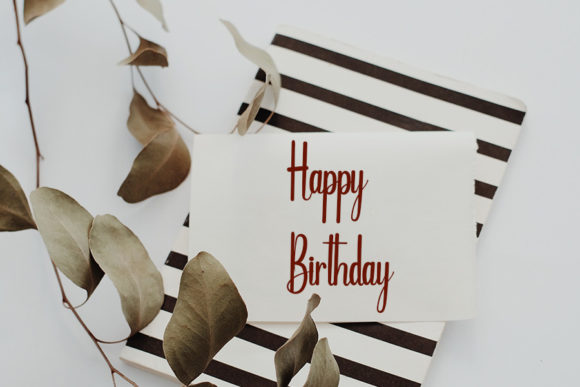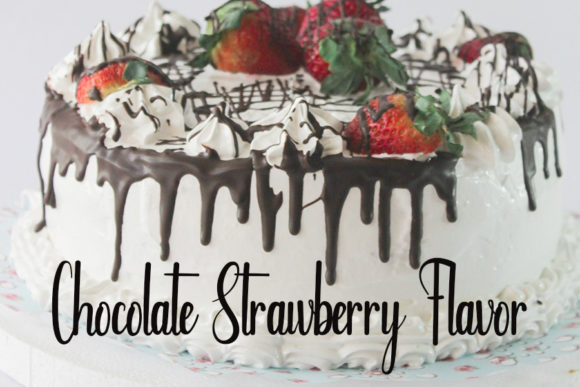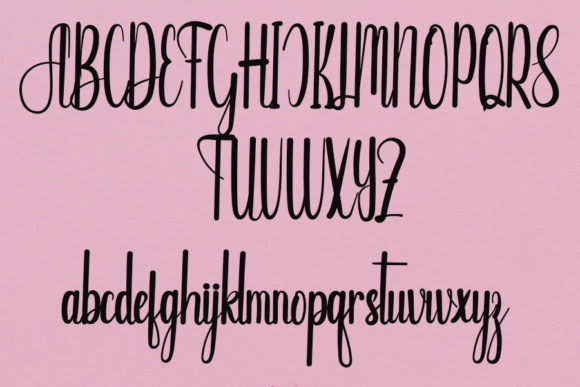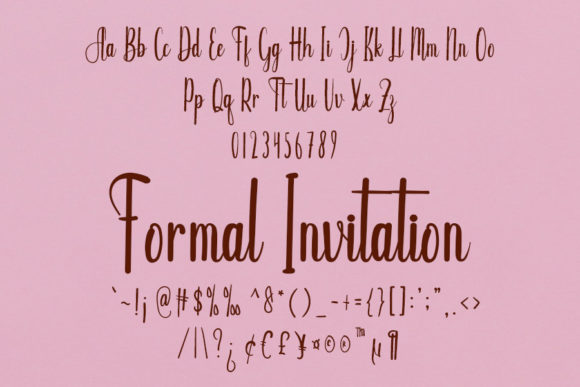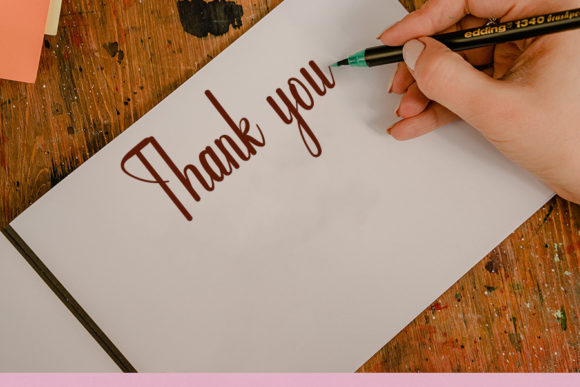
Introducing Formal Invitation Font: Elevate Your Designs with Elegance
Are you a designer or crafter looking for a font that exudes sophistication and style? Look no further than Formal Invitation Font, a beautiful and versatile handwritten font that is sure to add a touch of elegance to any design or creative project. With its unique feel and stunning impact, Formal Invitation Font is the perfect choice for those who want to make a lasting impression.
What Makes Formal Invitation Font So Special?
Formal Invitation Font is a one-of-a-kind font that boasts a distinctive and refined aesthetic. Its elegant strokes and cursive flair make it perfect for a wide range of applications, from wedding invitations and event announcements to branding and marketing materials. The font’s versatility is unmatched, allowing you to use it for both digital and print projects with ease.
Key Features of Formal Invitation Font
- Unique and Handwritten: Formal Invitation Font is a carefully crafted handwritten font that offers a personal and human touch to your designs.
- Versatile: This font is perfect for a wide range of projects, including invitations, announcements, branding, and more.
- Elegant and Refined: Formal Invitation Font features elegant strokes and a cursive flair that adds a touch of sophistication to any design.
- Easy to Read: Despite its ornate appearance, Formal Invitation Font is surprisingly easy to read, making it perfect for both digital and print applications.
How to Use Formal Invitation Font in Your Designs
Formal Invitation Font is incredibly easy to use and can be incorporated into your designs in a variety of ways. Here are a few ideas to get you started:
- Wedding Invitations: Use Formal Invitation Font to create beautiful and elegant wedding invitations that set the tone for the big day.
- Event Announcements: Whether you’re hosting a corporate event or a social gathering, Formal Invitation Font is perfect for creating eye-catching announcements.
- Branding and Marketing: Add a touch of sophistication to your brand with Formal Invitation Font, perfect for logos, business cards, and more.
- Stationery and Gift Tags: Use Formal Invitation Font to create beautiful stationery and gift tags that add a personal touch to any gift.
Tips for Getting the Most Out of Formal Invitation Font
To get the most out of Formal Invitation Font, here are a few tips to keep in mind:
- Experiment with Colors: Formal Invitation Font looks great in a variety of colors, so don’t be afraid to experiment and find the perfect hue for your design.
- Mix and Match Fonts: Combine Formal Invitation Font with other fonts to create a unique and eye-catching design.
- Pay Attention to Spacing: Make sure to adjust the spacing between letters and words to ensure that your design looks elegant and refined.